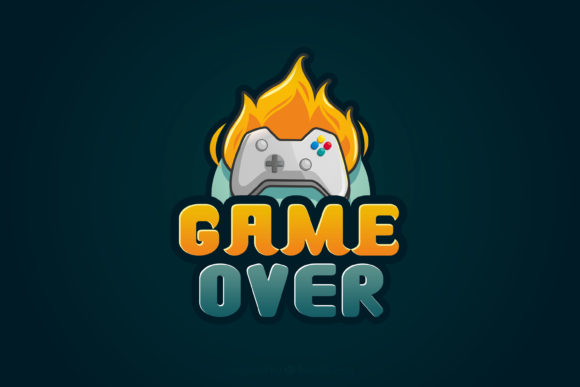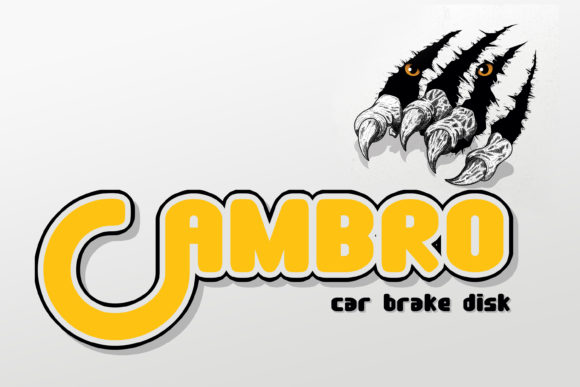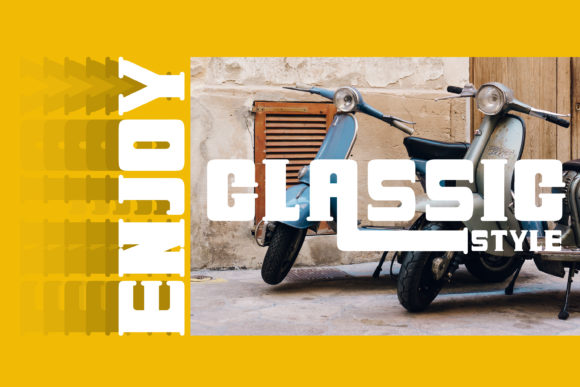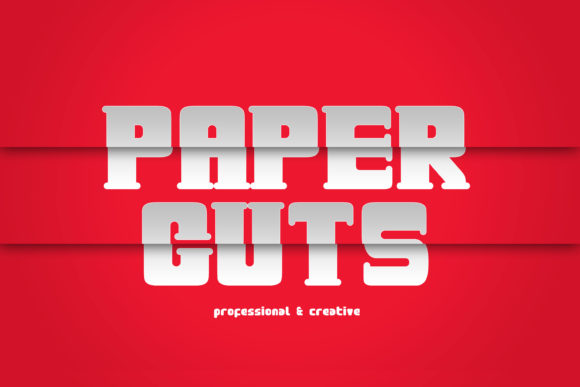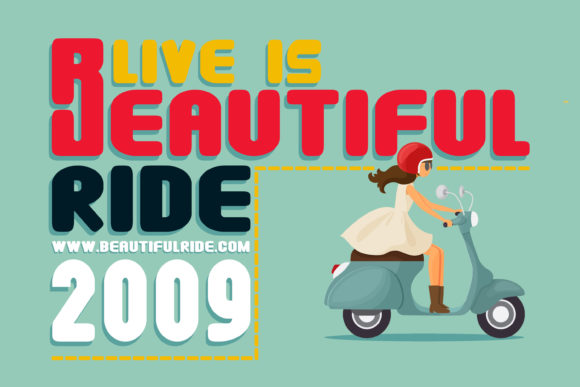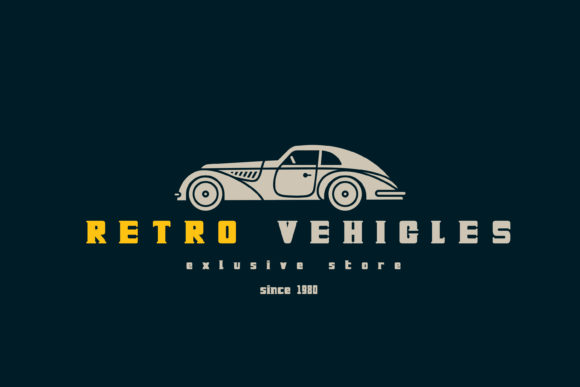
Eco Power Font: A Versatile Display Font for Creative Projects
Are you a designer or crafter looking for a font that can elevate your creative projects? Look no further than Eco Power Font. This truly outstanding display font offers a great diversity of weights, providing a variety of choices to help you find the best typographic solution for a wide range of projects.
What is Eco Power Font?
Eco Power Font is a display font designed to make a statement. Its unique and stylish design makes it perfect for use in a variety of creative projects, from branding and advertising to packaging and signage. With its clean lines and modern aesthetic, Eco Power Font is sure to grab attention and leave a lasting impression.
Key Features of Eco Power Font
- Multiple Weights: Eco Power Font offers a range of weights, from light to bold, giving you the flexibility to choose the perfect weight for your project.
- Versatile Design: The font’s design is versatile and adaptable, making it suitable for use in a wide range of projects, from digital media to print materials.
- Easy to Read: Despite its stylish design, Eco Power Font is easy to read, even at smaller sizes.
- High-Quality: The font is designed to high-quality standards, ensuring that it looks great in any application.
Benefits of Using Eco Power Font
So why choose Eco Power Font for your creative projects? Here are just a few benefits of using this versatile display font:
- Stand Out from the Crowd: With its unique and stylish design, Eco Power Font can help your project stand out from the crowd and grab attention.
- Flexibility: The font’s multiple weights and versatile design make it suitable for use in a wide range of projects.
- Professional Look: Eco Power Font can help give your project a professional look and feel, making it perfect for use in business and marketing materials.
How to Use Eco Power Font
Using Eco Power Font is easy. Here are a few tips to get you started:
- Choose the Right Weight: Select the weight that best suits your project, from light to bold.
- Experiment with Different Sizes: Try out different sizes to see how the font looks at different scales.
- Pair with Other Fonts: Eco Power Font can be paired with other fonts to create a unique and stylish look.
- Use in Digital and Print Materials: The font can be used in both digital and print materials, making it a versatile addition to your design toolkit.
Eco Power Font is a truly outstanding display font that offers a great diversity of weights and a versatile design. With its stylish and modern aesthetic, it’s perfect for use in a wide range of creative projects. Whether you’re a designer or crafter, Eco Power Font is a great choice for anyone looking to add a professional touch to their work.
Here are a few tips for designers and crafters looking to get the most out of Eco Power Font:
- Use in Branding and Advertising: Eco Power Font is perfect for use in branding and advertising materials, such as logos, business cards, and brochures.
- Experiment with Different Colors: Try out different colors to see how the font looks with different color schemes.
- Use in Packaging and Signage: The font can be used in packaging and signage to add a professional touch to your products or services.
- Pair with Images: Eco Power Font can be paired with images to create a stylish and eye-catching look.